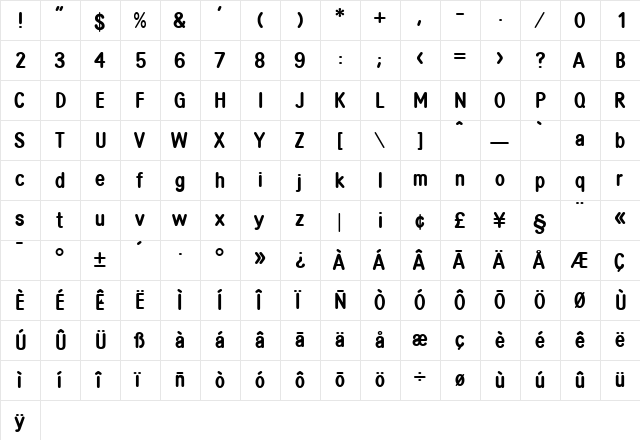
Usego Roman
Usego takes a measured approach to typography — its balanced proportions and neutral character make it a reliable workhorse for both digital and print work.